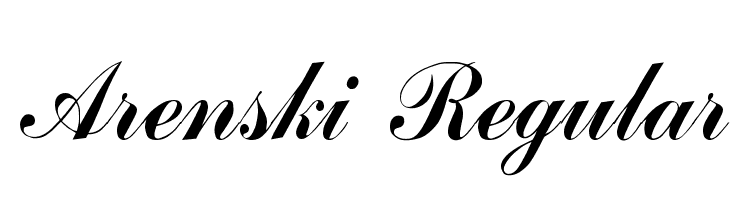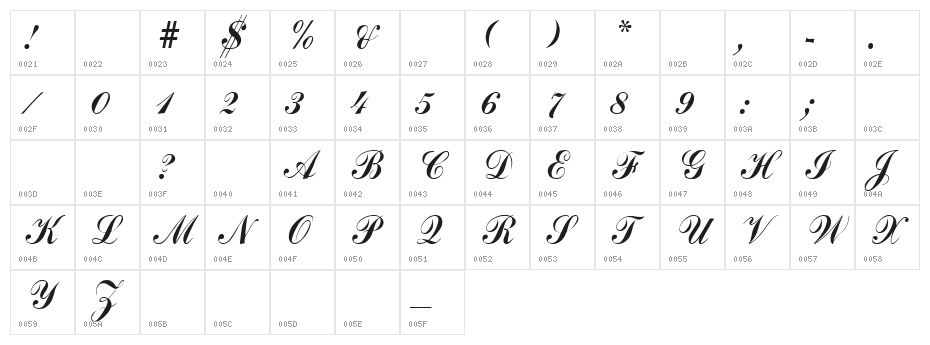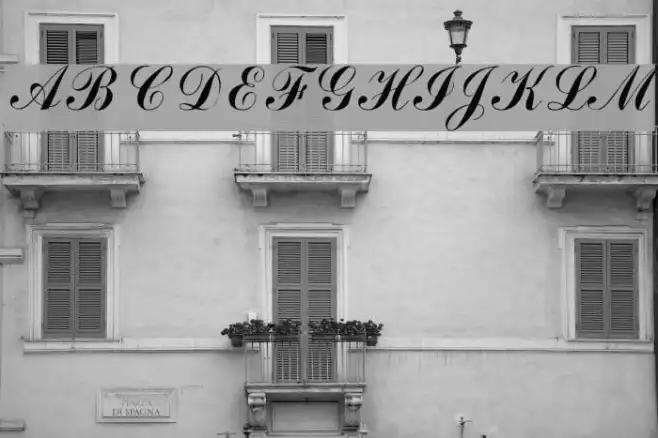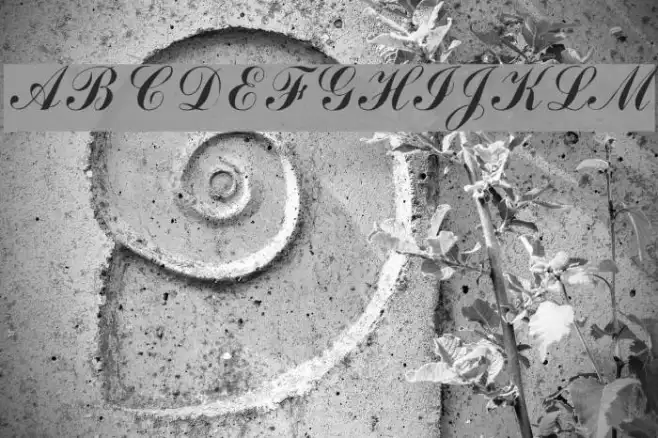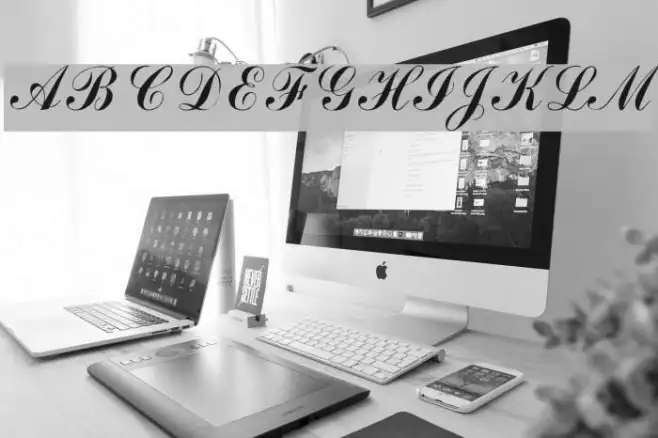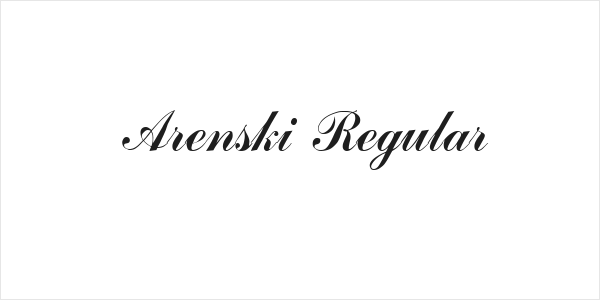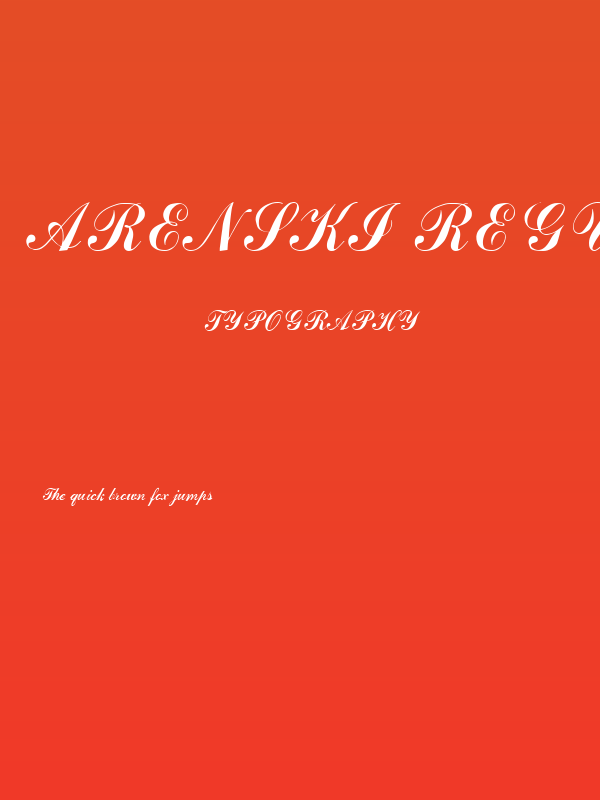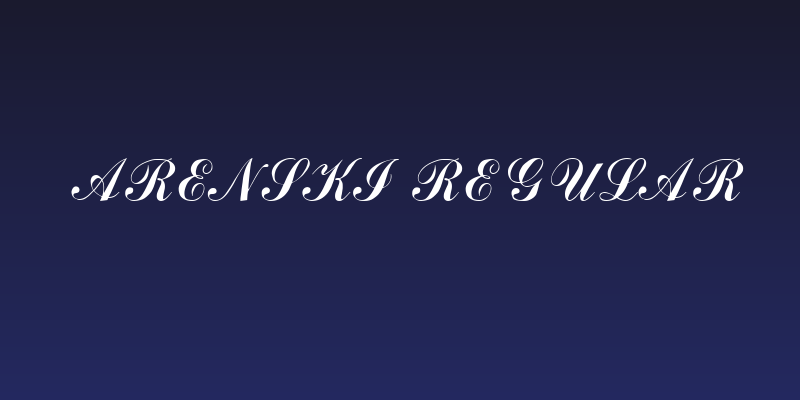
Arenski Regular Font
Arenski Regular Description
This elegant script font features a flowing, cursive style with high contrast between thick and thin strokes. The uppercase letters are ornate, with sweeping curves and flourishes that give a sense of sophistication and grace. The lowercase letters maintain a consistent slant, enhancing the fluidity of the text. Numbers and special characters are designed with the same attention to detail, ensuring a cohesive look across all elements. This font exudes a classic charm, making it ideal for formal invitations, branding, and decorative purposes.
| Proposed Projects | Ideal for wedding invitations, luxury branding, greeting cards, and decorative signage. |